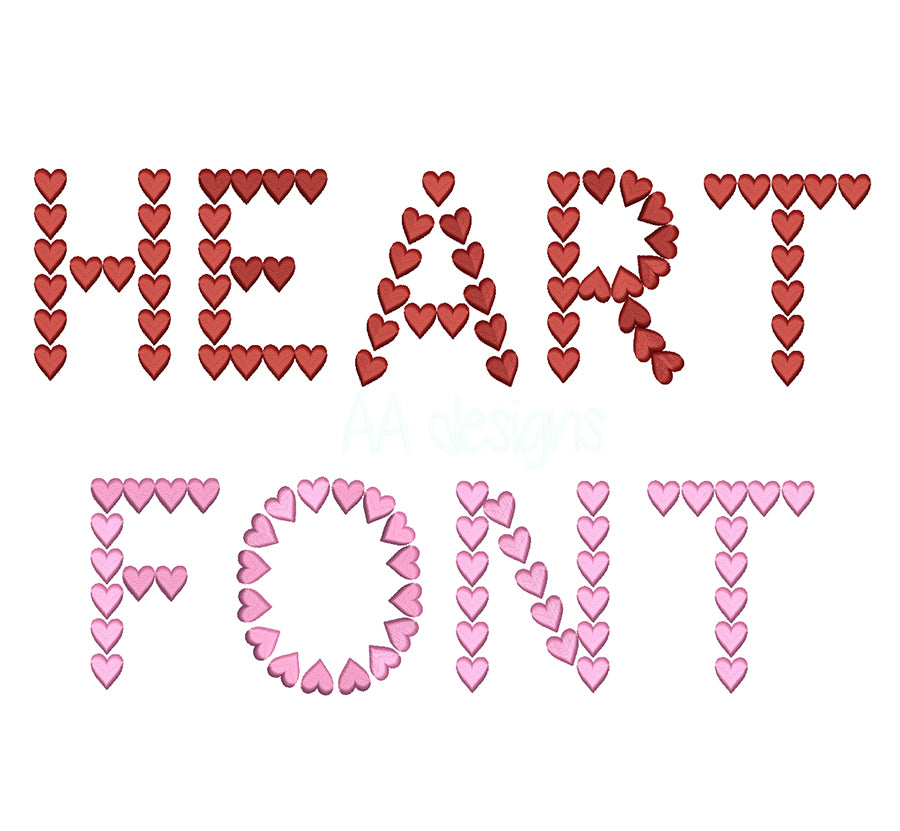
Heart3D puff embroidery digital font. 3D foam embroidery alphabet. BX format
Heart 3D puff embroidery digital font
This font comes with letters in 3 sizes, A-Z